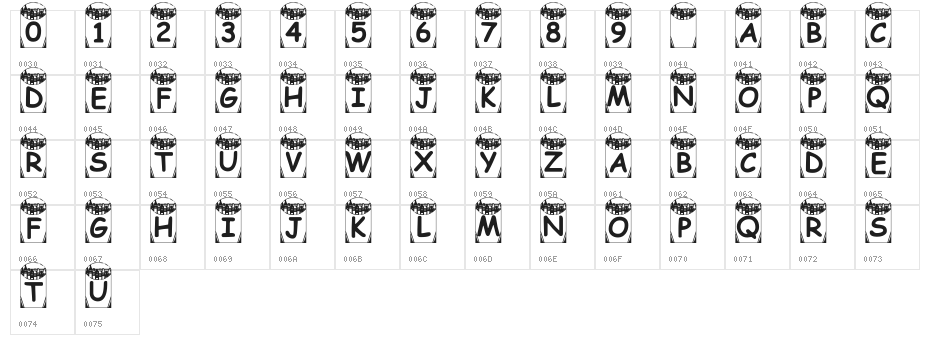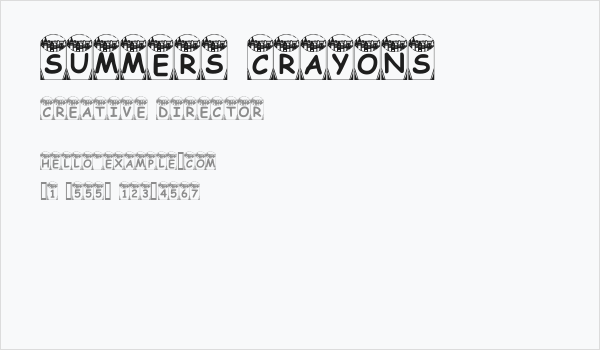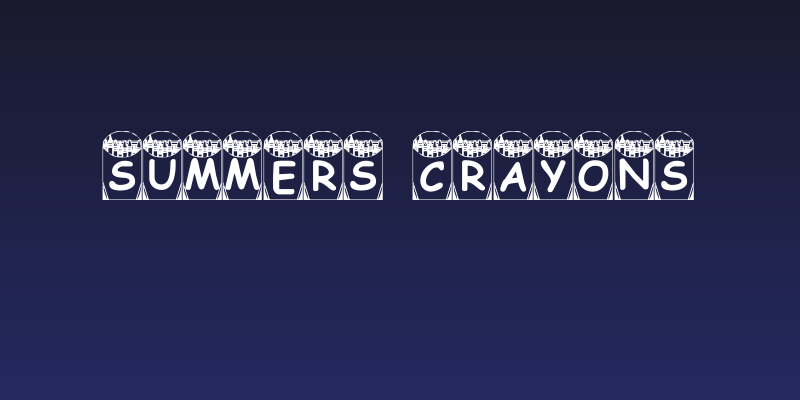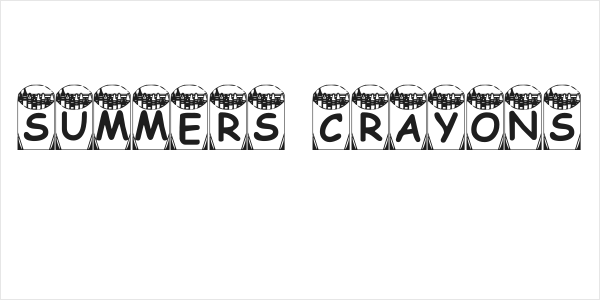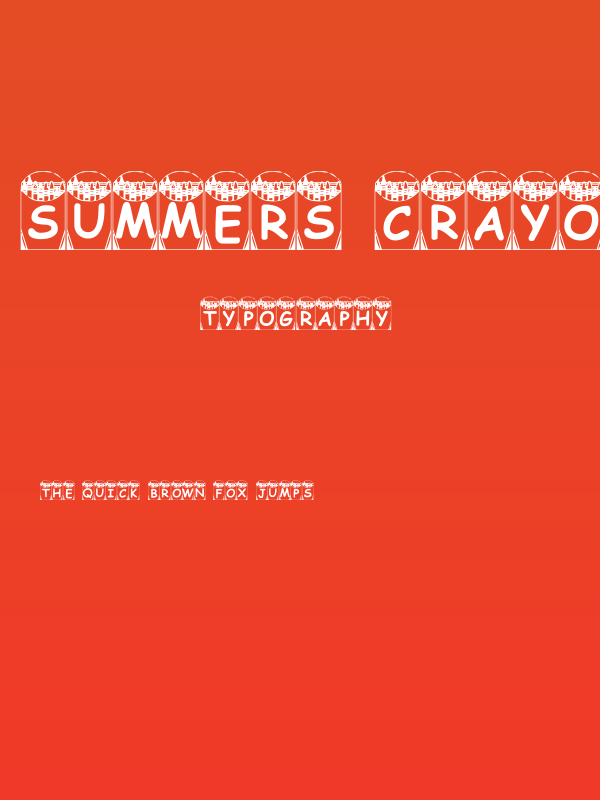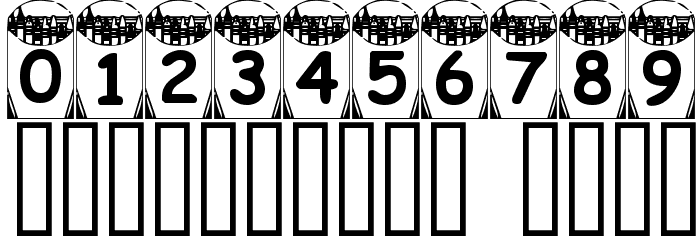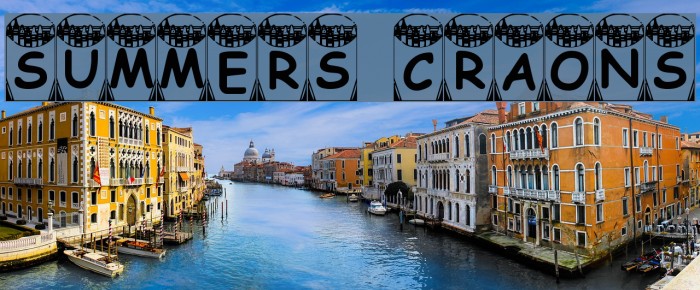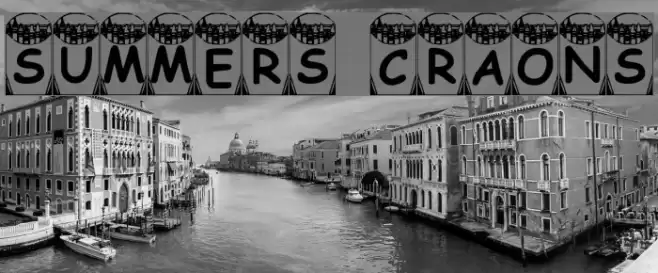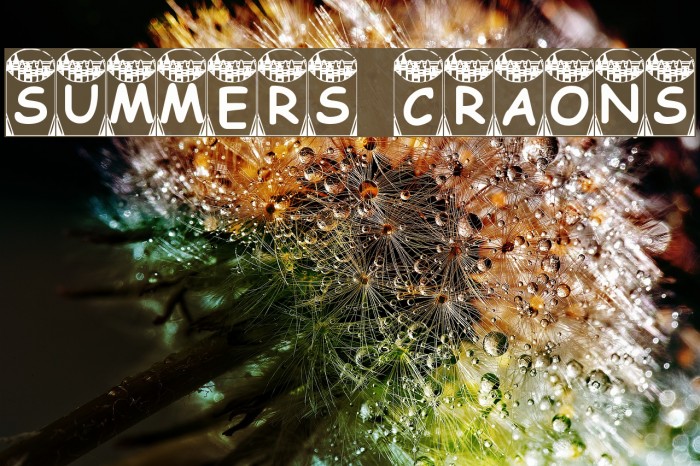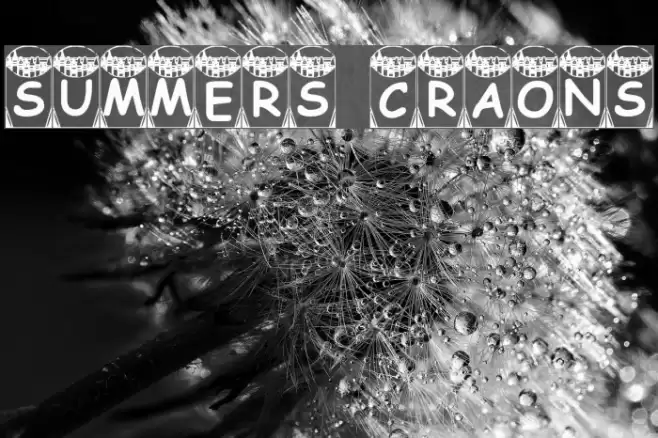
Summers Crayons Font
| Gesamtstil | Playful, Whimsical |
| Anwendungsfall | Headlines, Logos, Creative projects |
| Vorgeschlagene Projekte | Ideal for children's books, educational materials, playful branding, and creative projects. |